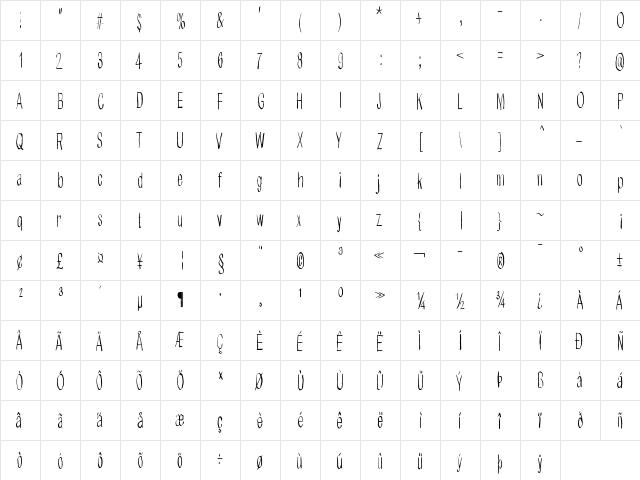
Better get ready Regular
| Designer | junkohanhero |
Design Context for Better get ready Typeface
Better get ready is a composed and adaptable typeface that performs quietly and consistently across a wide range of design contexts.